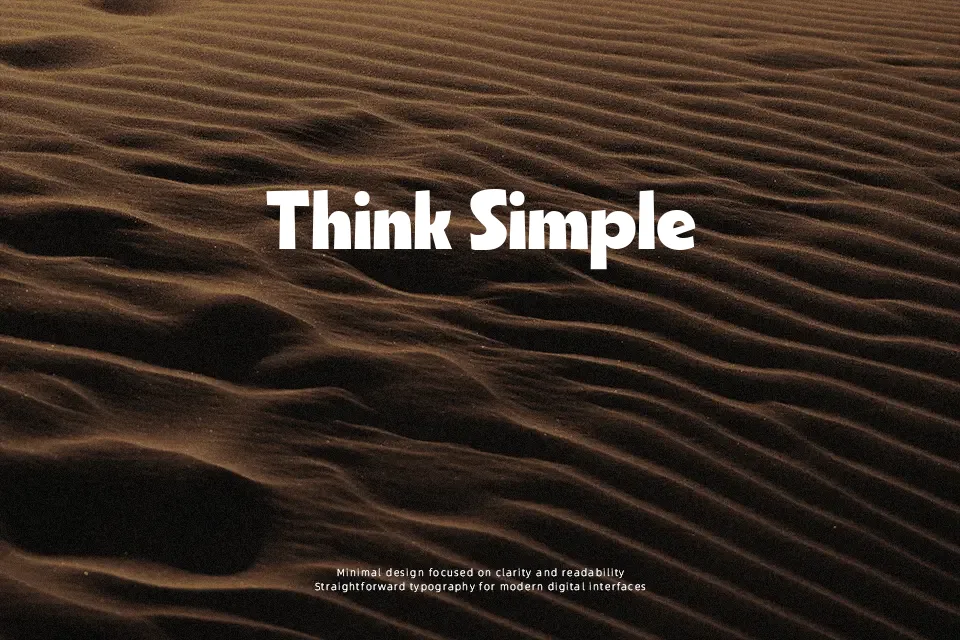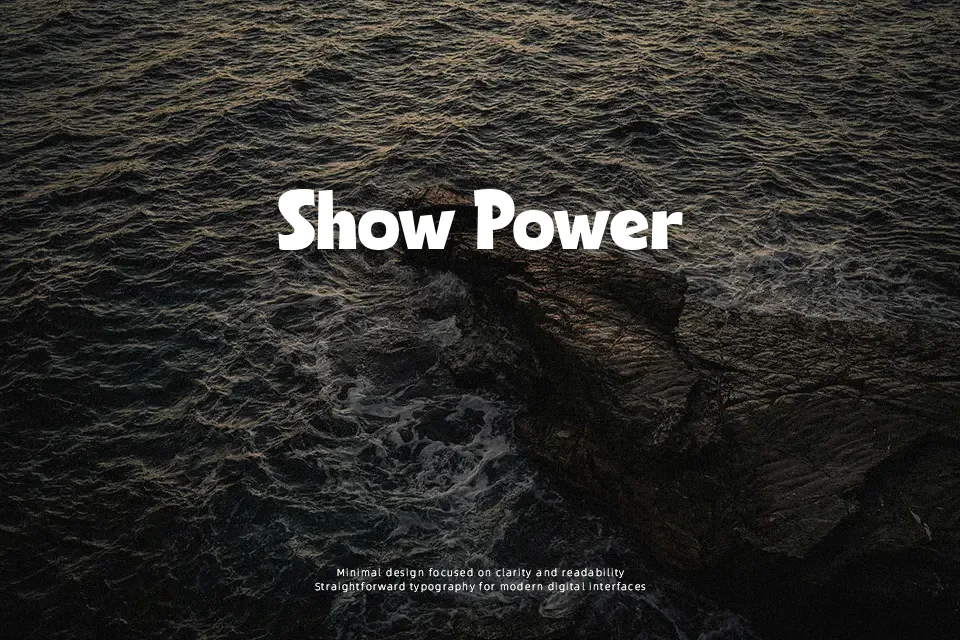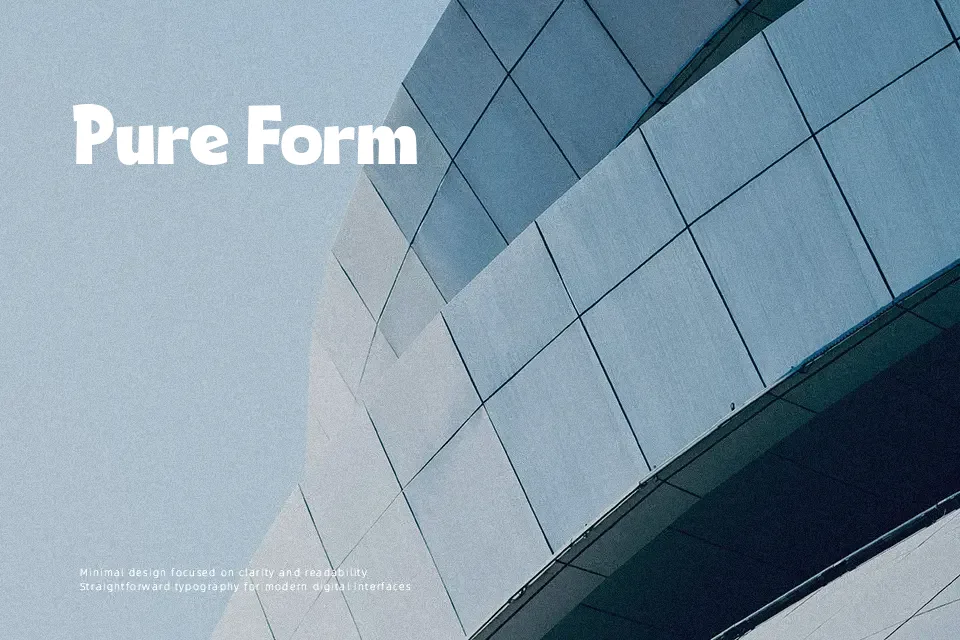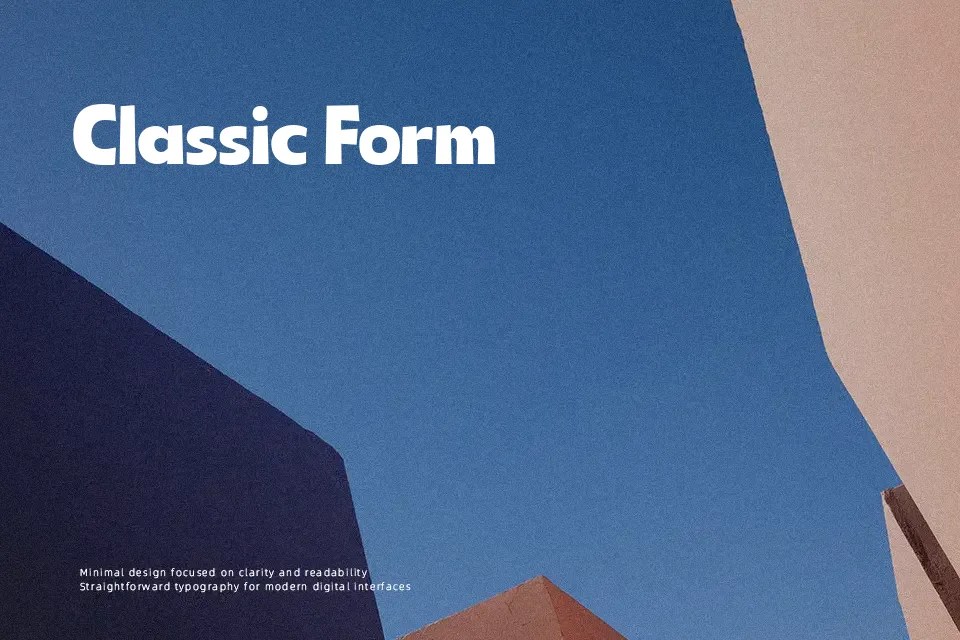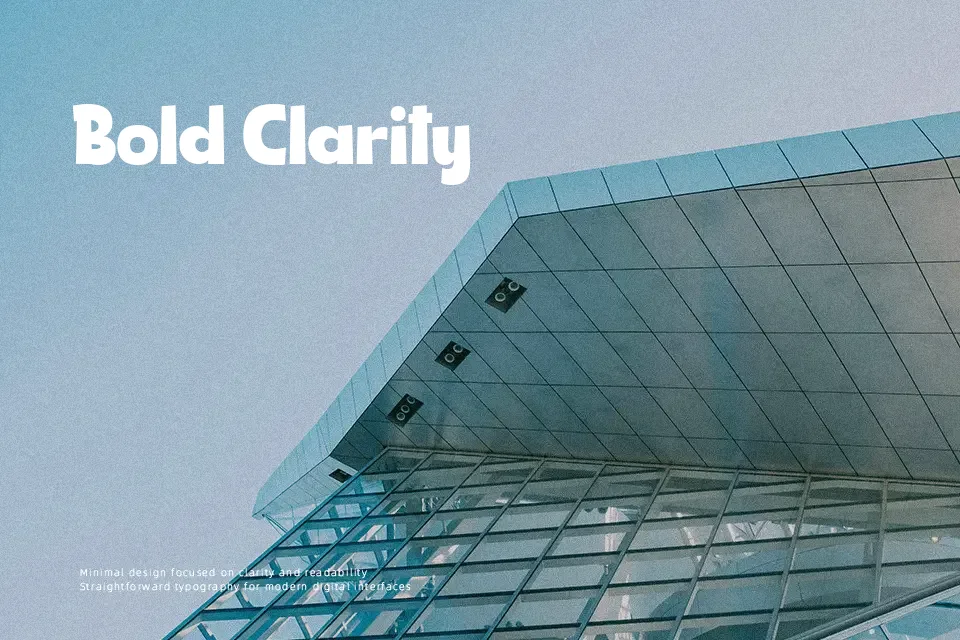
Ariston Comic Font
The demo version of Ariston Comic arrives with noticeably thick, rounded strokes and a loose, energetic structure that reads immediately as cartoon-adjacent. Letter spacing feels intentionally open — it breathes well at large sizes but starts to feel disconnected at small scales. The font’s layered architecture is its standout quality, allowing designers to stack color fills and outlines for depth, though that functionality is locked behind the full commercial release. Works reliably for children’s YouTube channel art, toy packaging headers, or gaming event titles aimed at younger audiences. It struggles in contexts requiring readability below 24pt, and the demo character set at 177 glyphs limits multilingual projects. If you’ve worked with fonts like Boogaloo or Cubano, this sits in a similar playful weight range — just with more structural layering potential.
Best For:- Children’s YouTube thumbnails and channel banners
– Kids’ book cover titles and chapter headings
– Toy or game packaging display text
– School event posters and activity flyers
Not Ideal For:- Body text or any reading-length copy
– Professional business or corporate materials
– Multilingual projects requiring extended glyph coverage (demo only)
– Small-size applications under 20pt
Perfect for gaming, headline, and kids, with a bold and comic style.